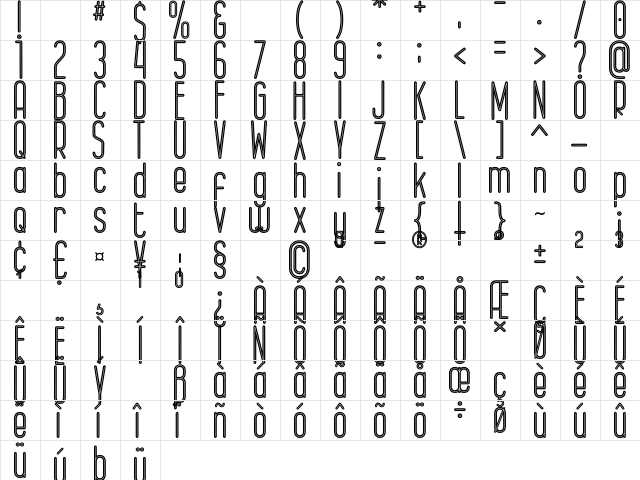
Epicentrum Regular
Design Context for Epicentrum Typeface
Epicentrum is a composed and adaptable typeface that performs quietly and consistently across a wide range of design contexts.